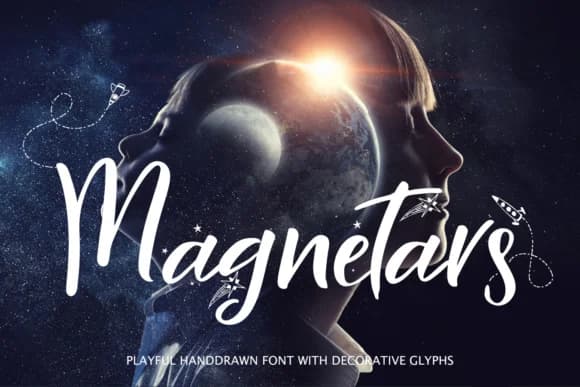
Magnetars by tregubova.jul is a bold, painterly script typeface that authentically captures the raw aesthetic energy of mid-century design with striking contemporary appeal. This handwritten display font features distinctly thick, expressive letterforms rendered with genuine artistic flair and unpolished character that creates the authentic impression of skilled hand-lettering rather than sterile digital type. The font's highly painterly quality and visible artistic hand make it an excellent choice for creative professionals seeking typefaces with genuine personality and soul, easily transcending the limitations of generic modern sans-serif conventions that currently dominate contemporary design landscapes.
The typeface excels when applied across diverse vintage-focused design projects and branding initiatives. Use Magnetars for retro album cover designs, hand-lettered cosmetics and boutique skincare packaging, groovy vintage merchandise labels, and bold promotional poster layouts that demand genuine period character and visual impact. Its expressive strokes command genuine attention in mixed-media campaigns that celebrate design history and intentional nostalgia, whether applied to physical product packaging, digital presentations, or editorial design work featuring artistic direction. The font remains equally effective for independent boutique branding initiatives that require strong visual distinction, memorable personality, and design authenticity.
Magnetars Font is a script font that shines as a display or heading face. Pair it with a clean sans-serif or serif font for body text β the contrast creates a clear hierarchy while the two styles stay balanced and easy to read.